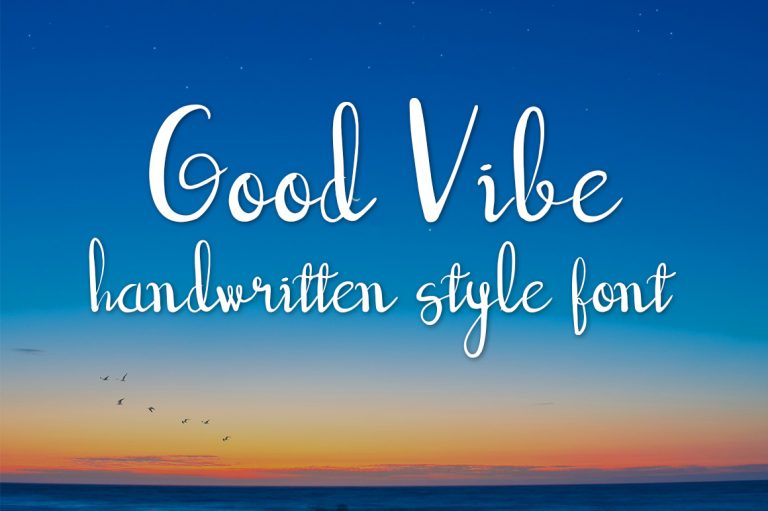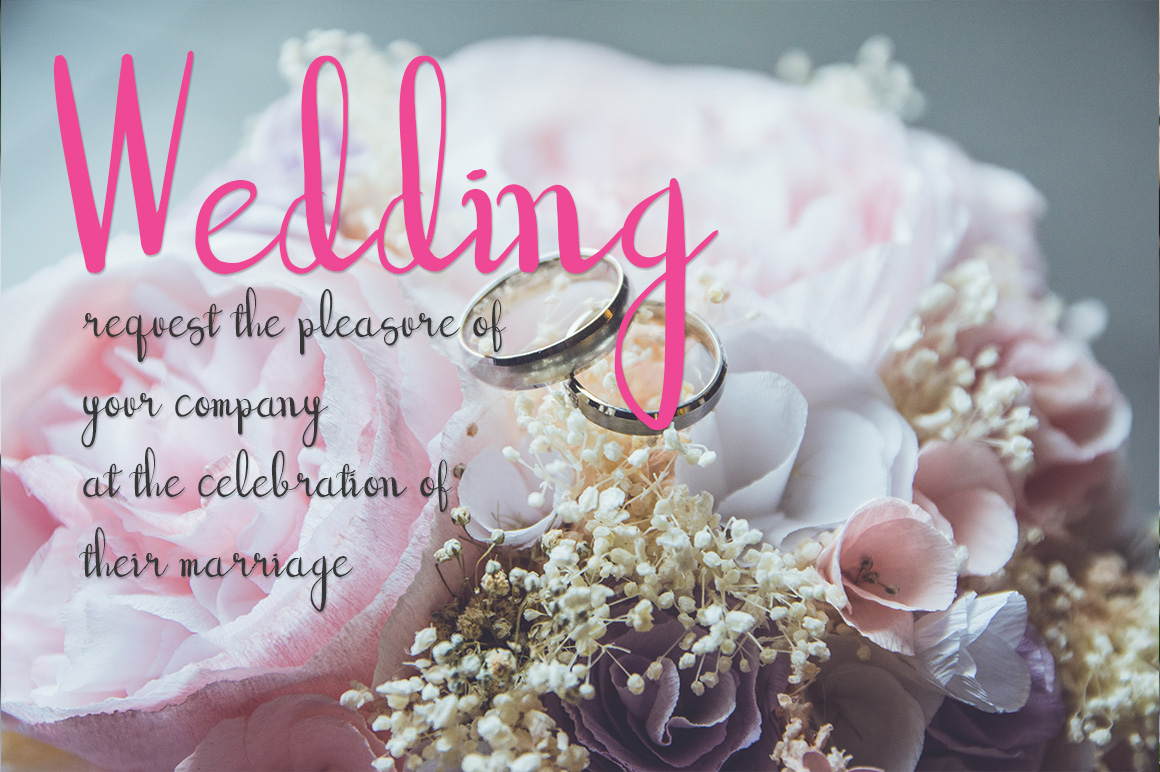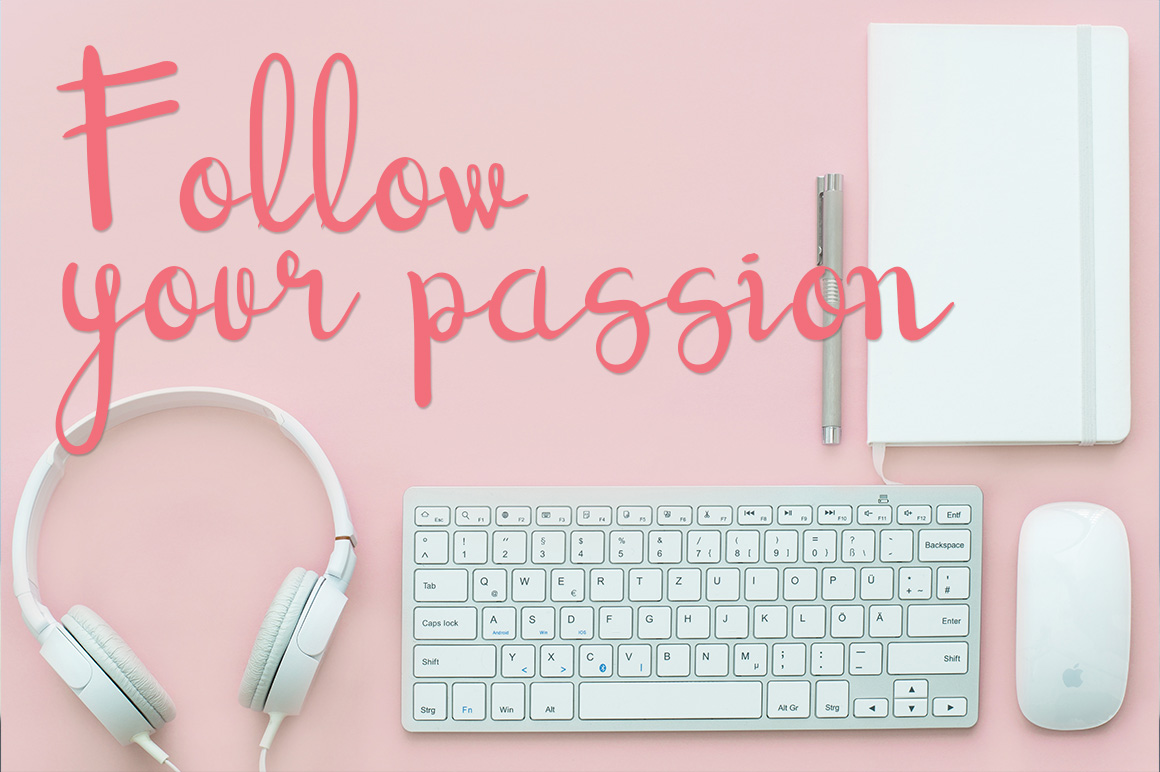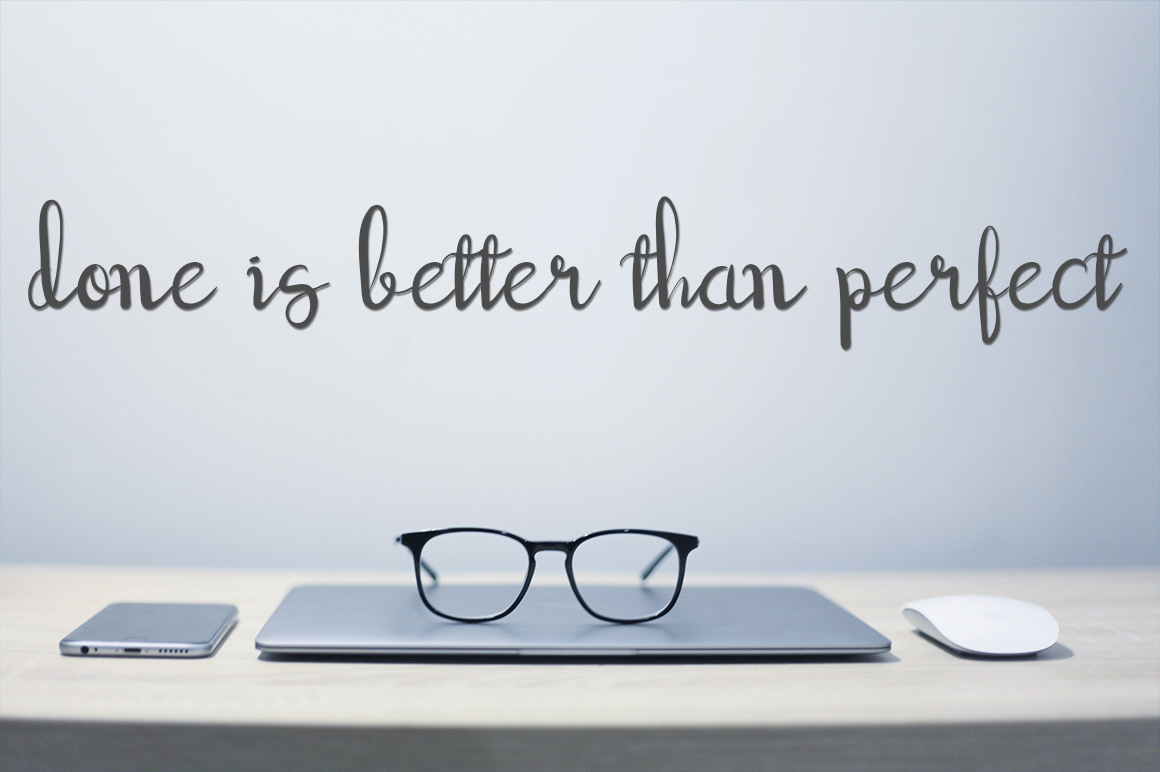
Good Vibe Script Font
Good Vibe is a new, modern script with a handwritten style. Good Vibe works great for a large range of projects such as: wedding invites with floral designs, a banner, personal branding and much more.